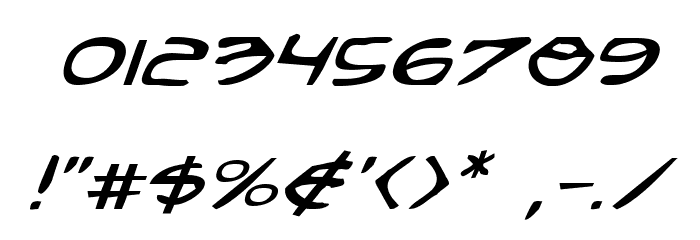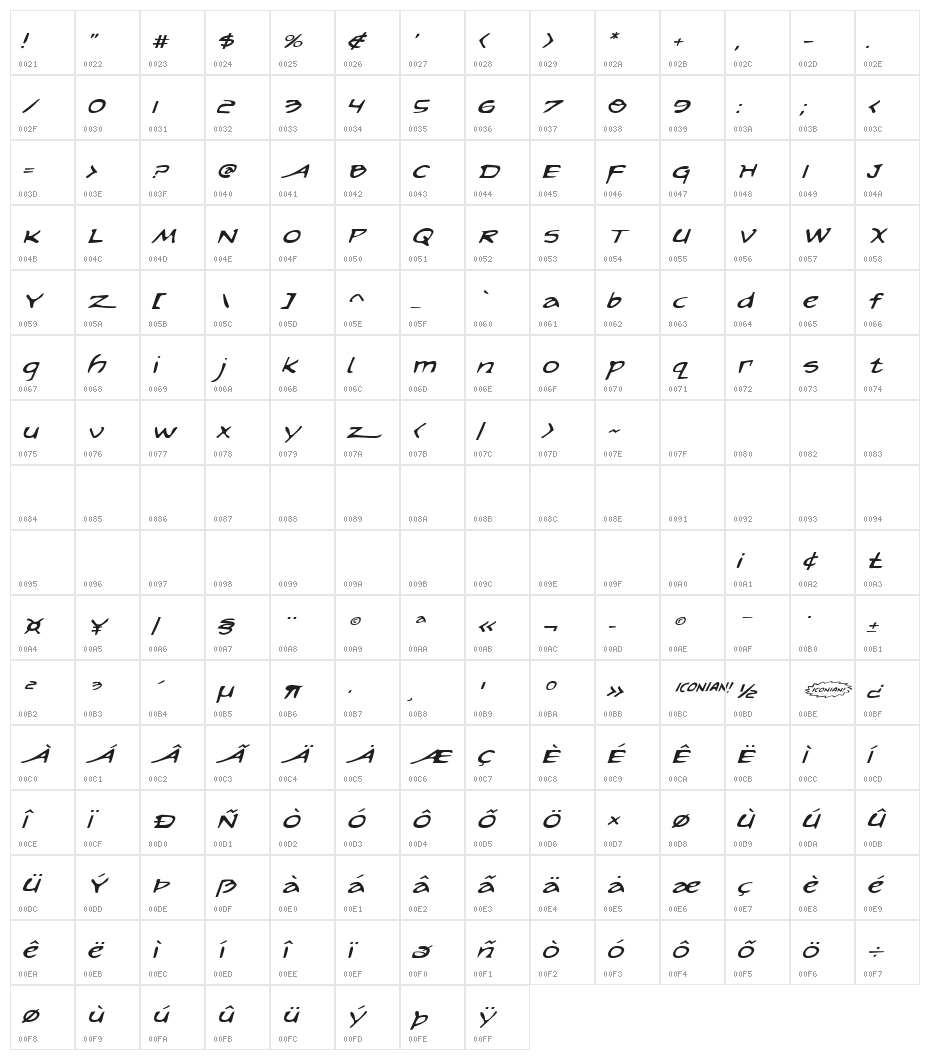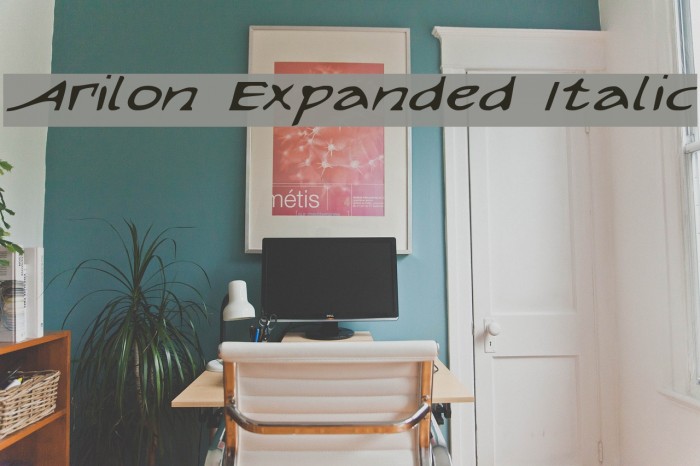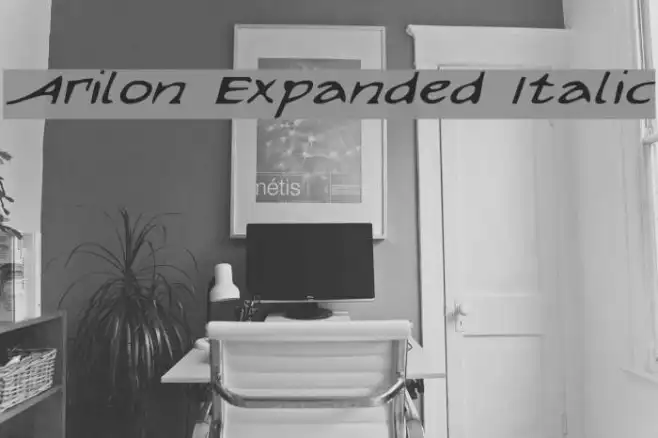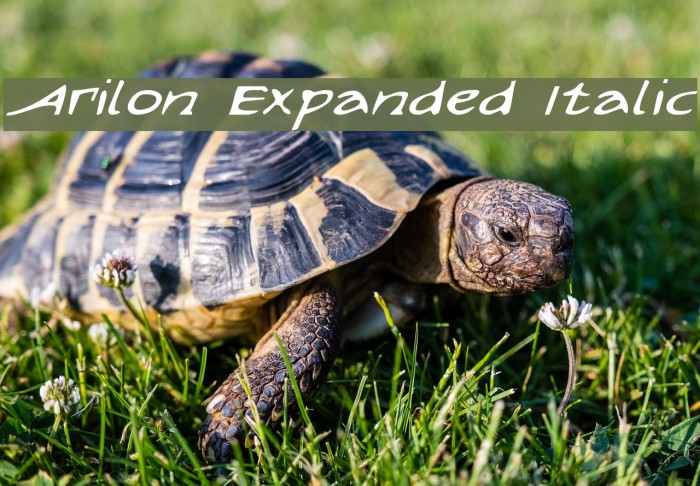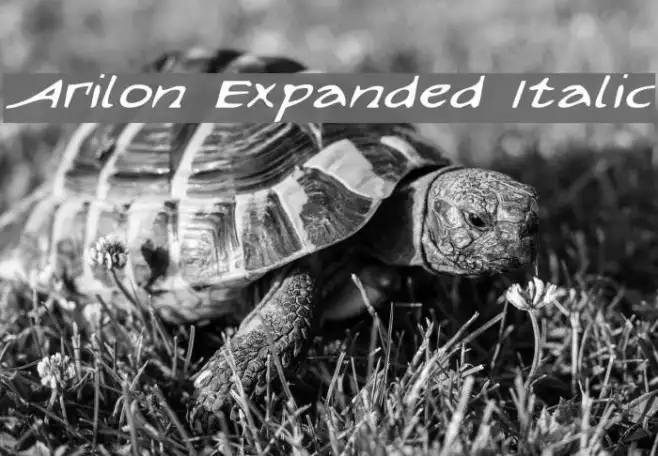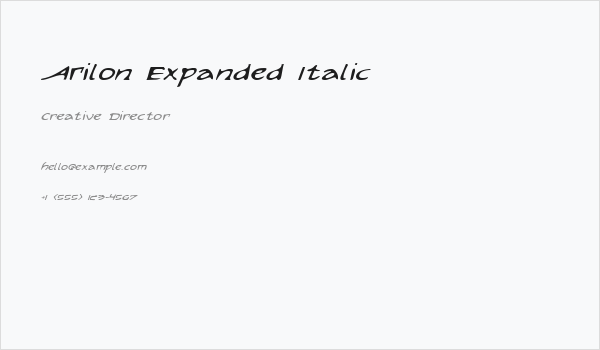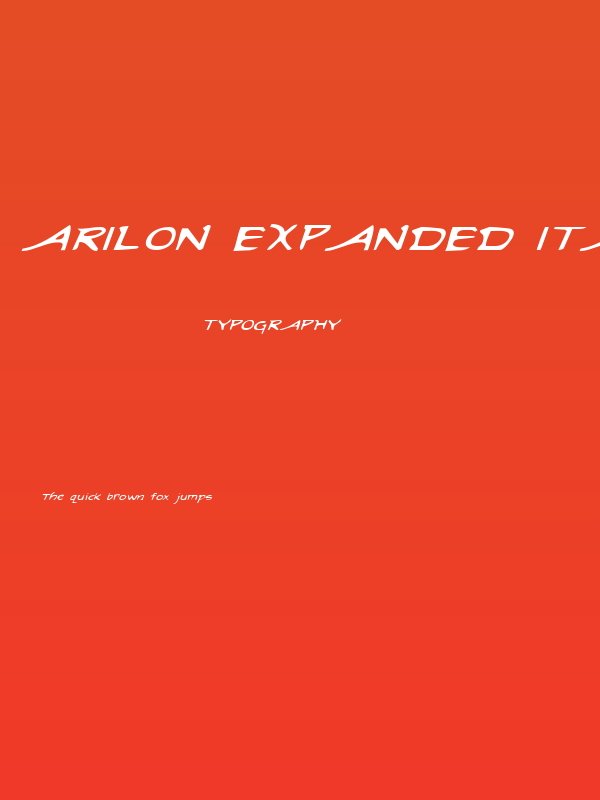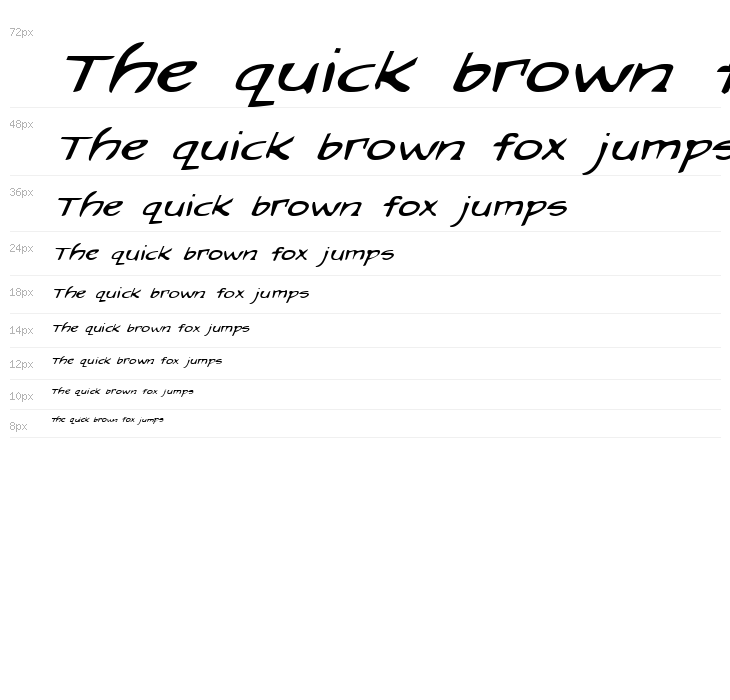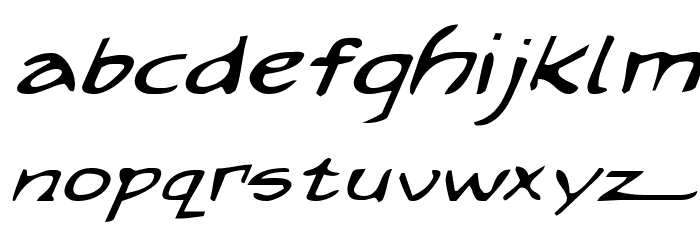
Arilon Expanded Italic Font
Arilon Expanded Italic Description
This font features a dynamic and fluid design, characterized by its italicized and expanded letterforms. The strokes are smooth and slightly angular, giving it a modern and energetic appearance. The uppercase letters are bold and assertive, while the lowercase letters maintain a consistent flow, enhancing readability. Numbers and special characters are crafted with the same attention to detail, ensuring uniformity across all glyphs. The overall style is both contemporary and versatile, making it suitable for a variety of design applications.
| Proposed Projects | Ideal for branding projects, advertising campaigns, and modern editorial design. |